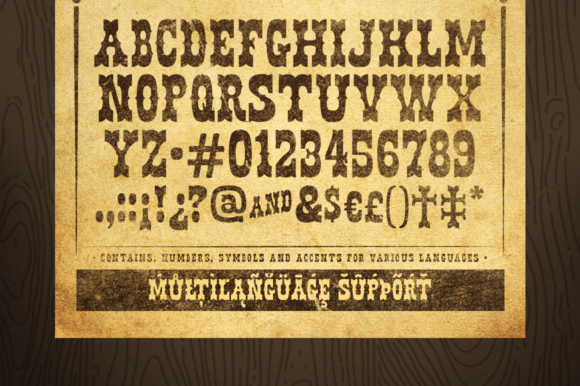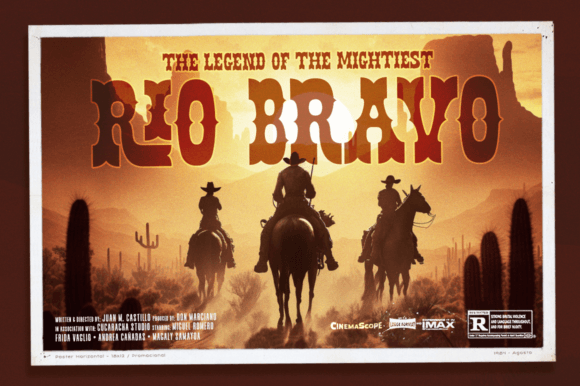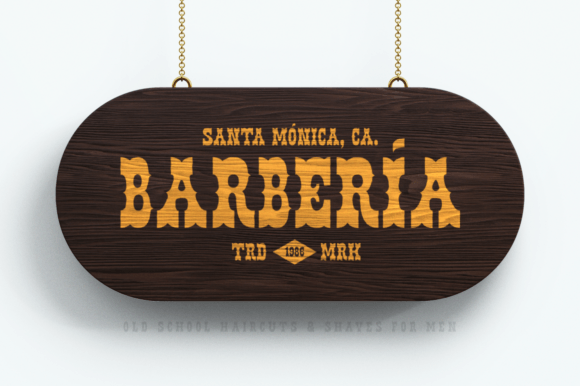
Cantina Font: A Bold Vintage Display Font for Western-Inspired Designs
About the Cantina Font
Add a touch of class to your work with the Cantina Font, a truly exceptional typeface. Saddle up and get ready for a wild ride with our bold and daring slab-serif font. Inspired by the ruggedness of the Wild West, this font features sturdy serifs and striking strokes that convey strength and power. Ideal for anything from branding to packaging design, this font is sure to make a statement. This font is PUA encoded which means you can access all glyphs and swashes effortlessly!
Cantina Font’s strong personality makes it perfect for headlines, short impactful taglines, and branding applications where a bold, assertive presence is desired. It excels in poster design and packaging, particularly for products emphasizing ruggedness or a vintage aesthetic. However, its weight and strong serifs make it less suitable for body text or UI elements requiring high readability.
For optimal visual harmony, pair Cantina Font with a clean sans-serif like Open Sans for body copy or a more delicate script font such as Great Vibes for elegant accents. A geometric sans-serif like Montserrat could also provide a modern contrast, balancing the font’s Western-inspired character.
The overall personality of Cantina Font is bold, confident, and slightly rebellious, lending itself to brands that project strength, authenticity, and a touch of adventurousness. Think whiskey brands, leather goods, or outdoor adventure companies.